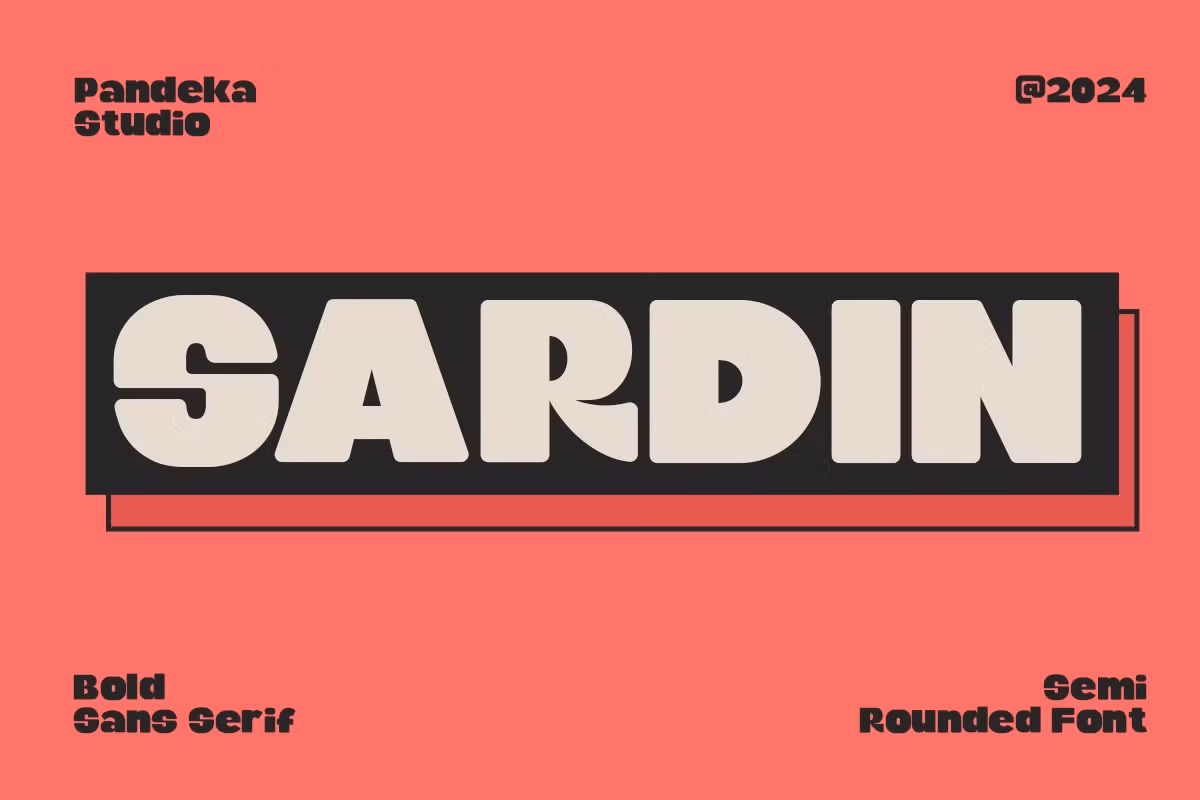
Sardin – Rounded Bold Font Free Download is a modern, friendly typeface with bold weight and smooth, rounded edges. Ideal for logos, packaging, social media graphics, and playful branding, this font commands attention while maintaining an approachable, soft aesthetic.
Whether you're designing for a tech startup, a lifestyle brand, or a kid-friendly product, Sardin – Rounded Bold Font Free Download delivers high impact without being harsh. Its readability and cheerful vibe make it a versatile choice for both digital and print applications. Try it out in your next creative project and get a feel for its bold personality before committing to the full commercial license. This font is bold, bubbly, and built to stand out!